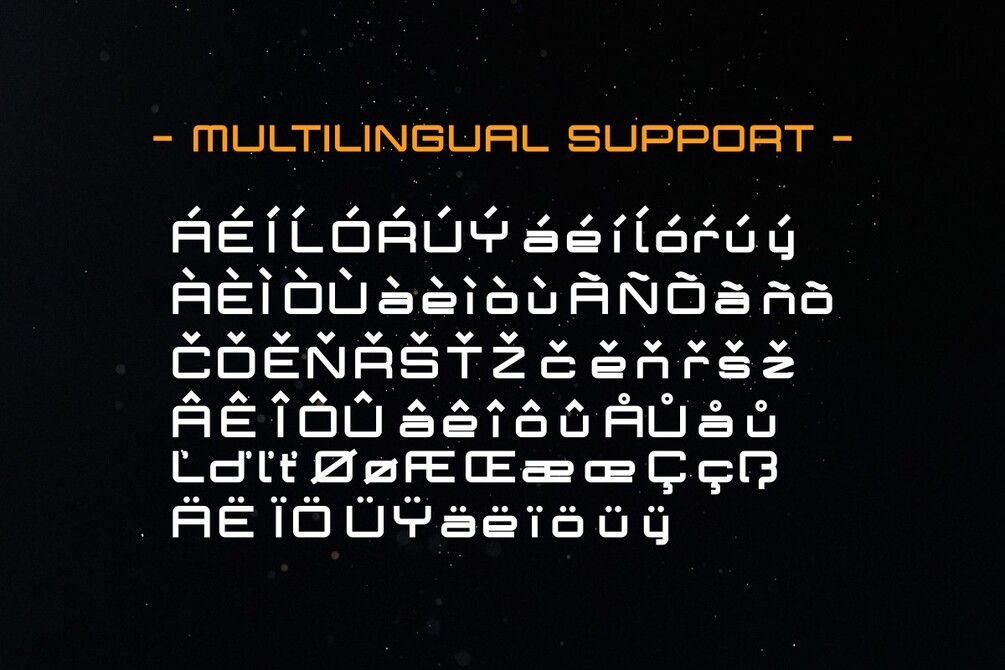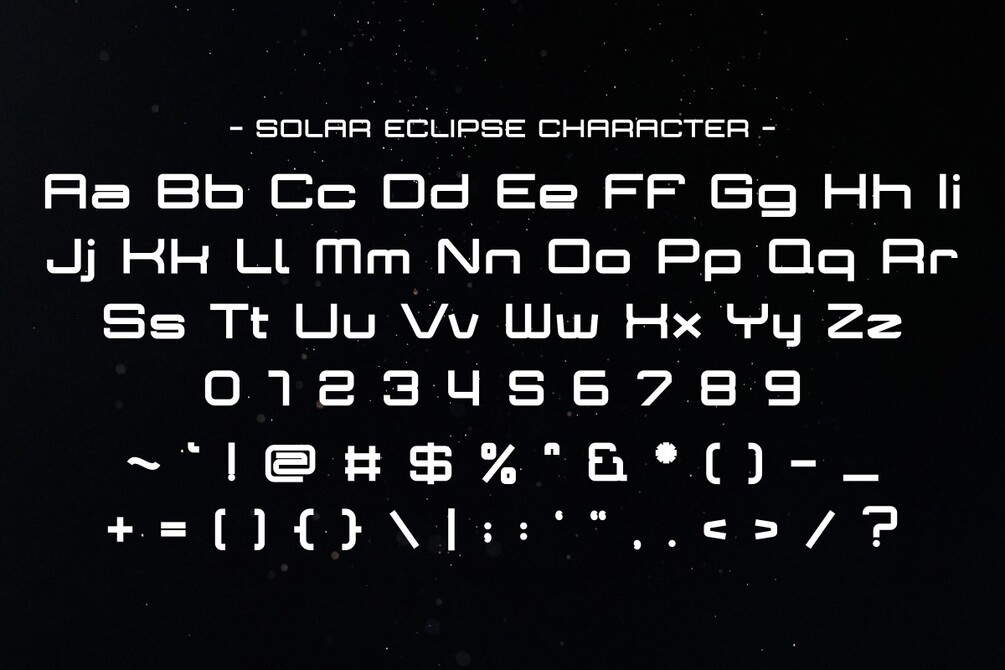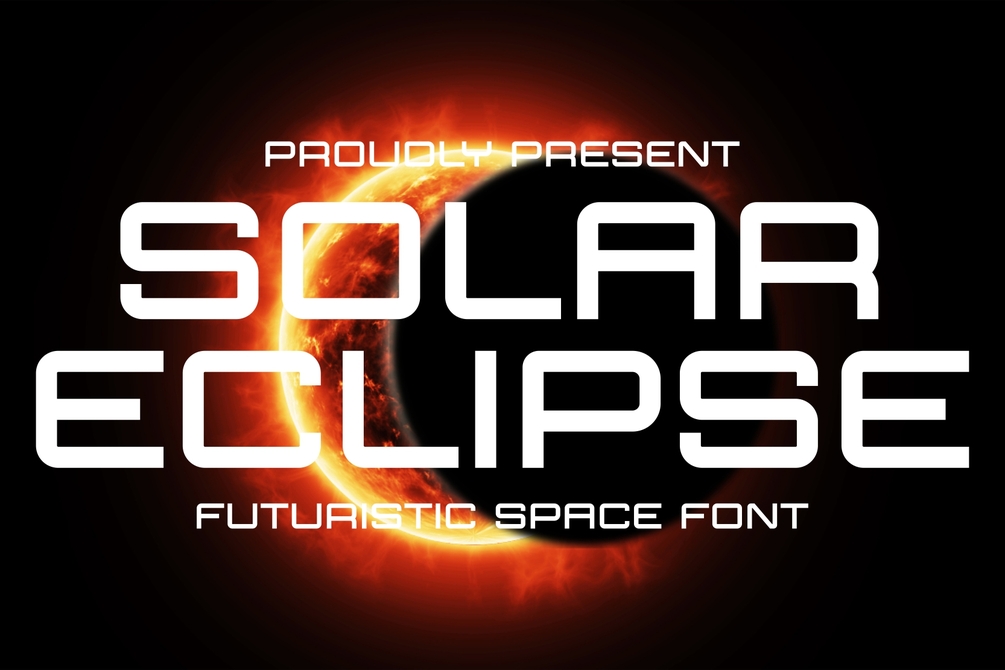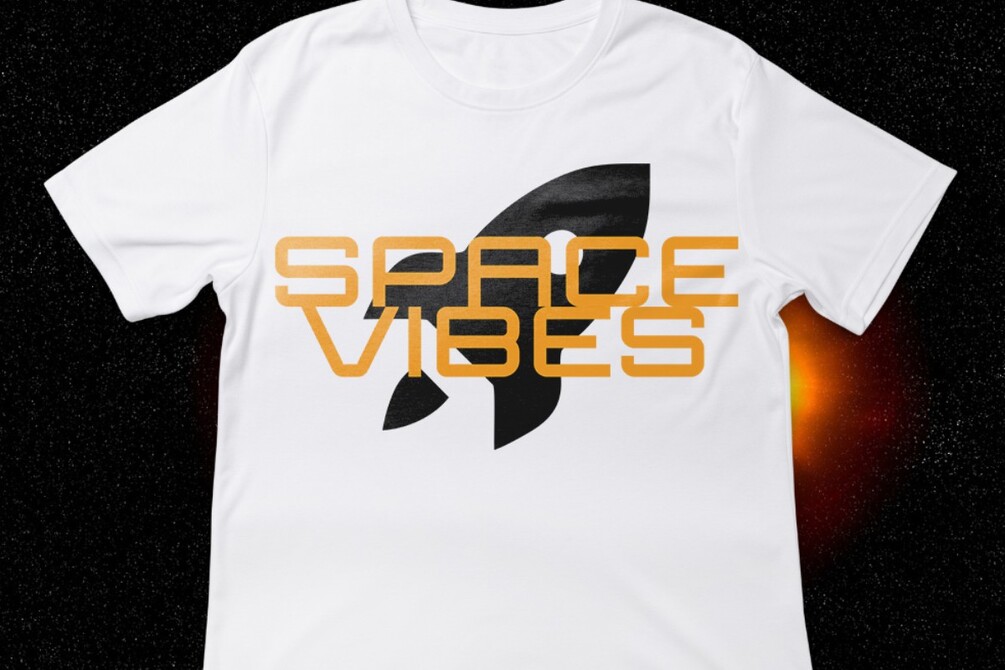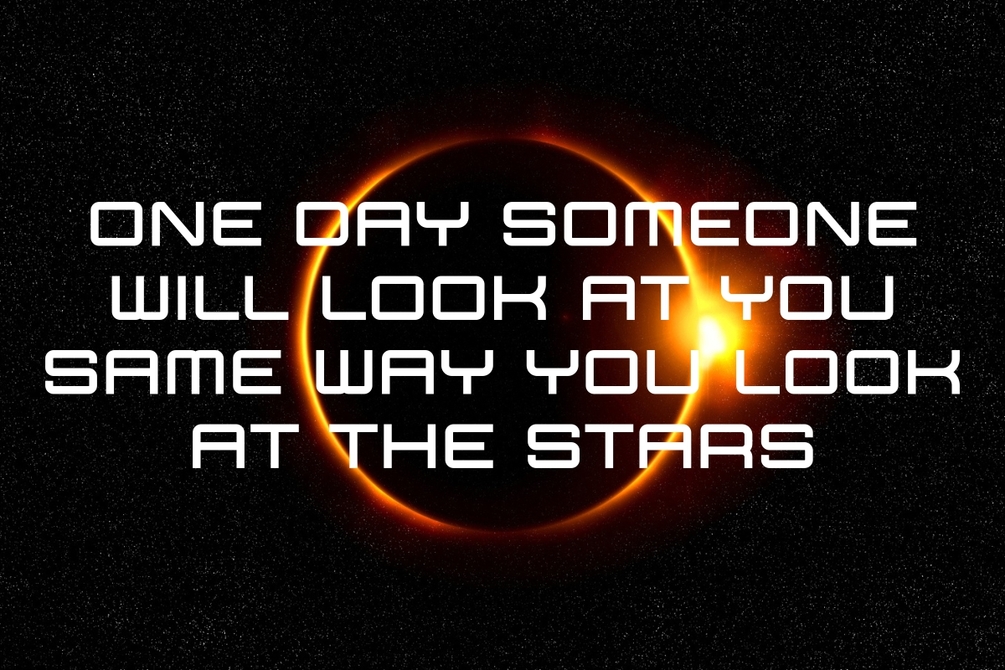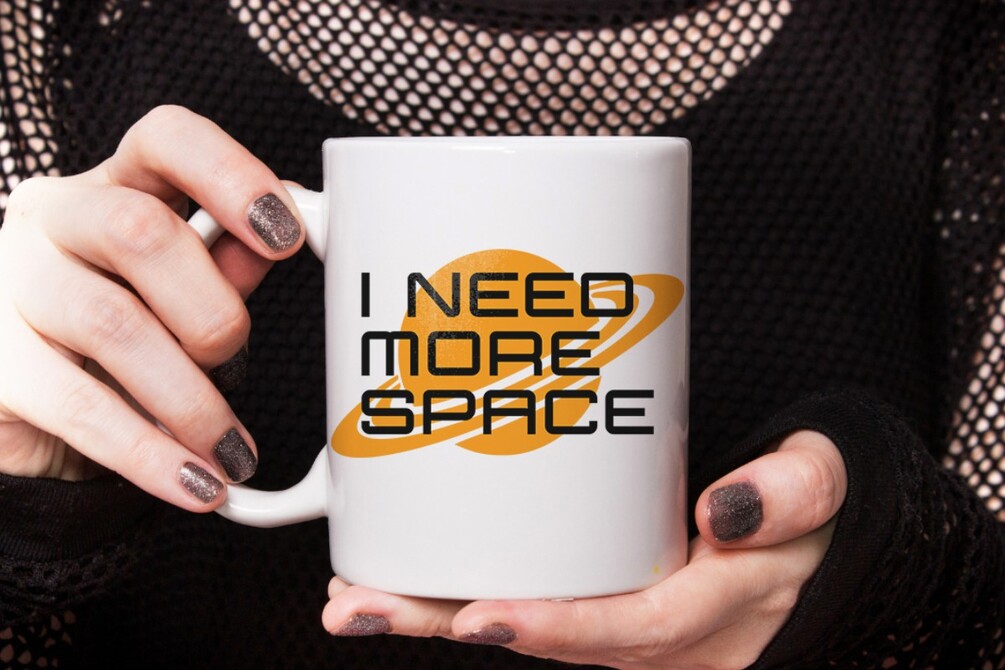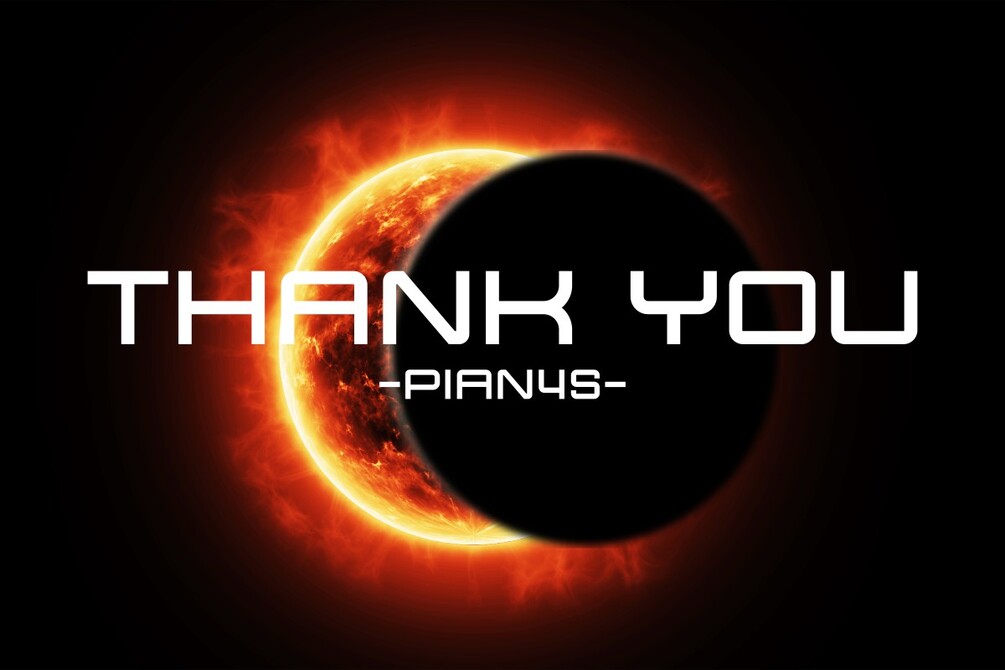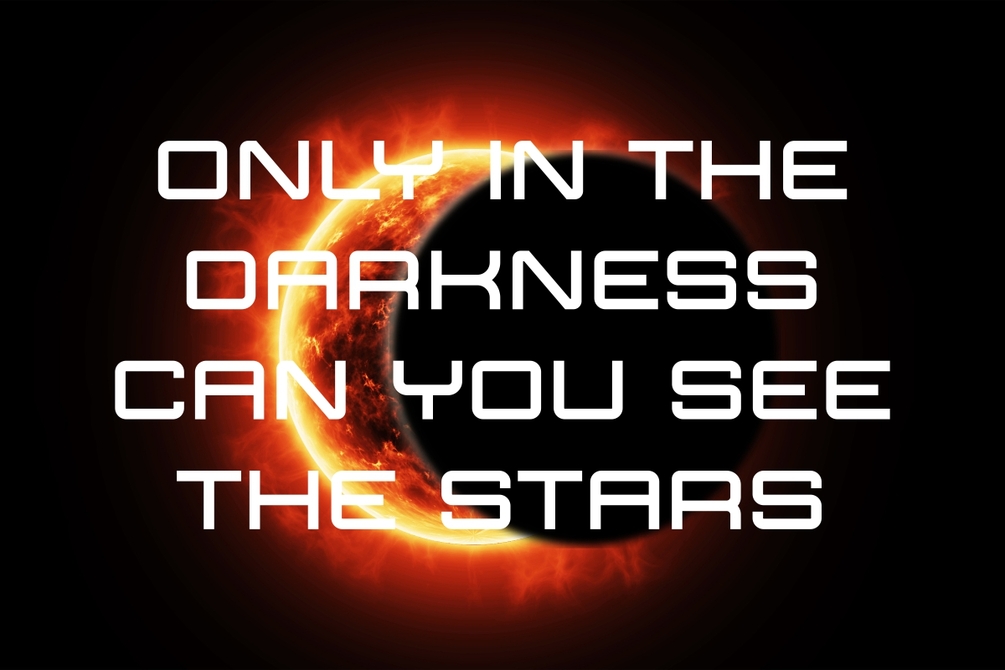
Solar Eclipse - Futuristic Font
Solar Eclipse is a futuristic space font inspired by the vastness of outer space. With its sleek sans-serif style and captivating design, this font brings a touch of modernity and cosmic allure to your projects. Perfect for various mockup designs including t-shirts, mugs, tote bags, backgrounds, and posters, "Solar Eclipse" offers versatility and sophistication.